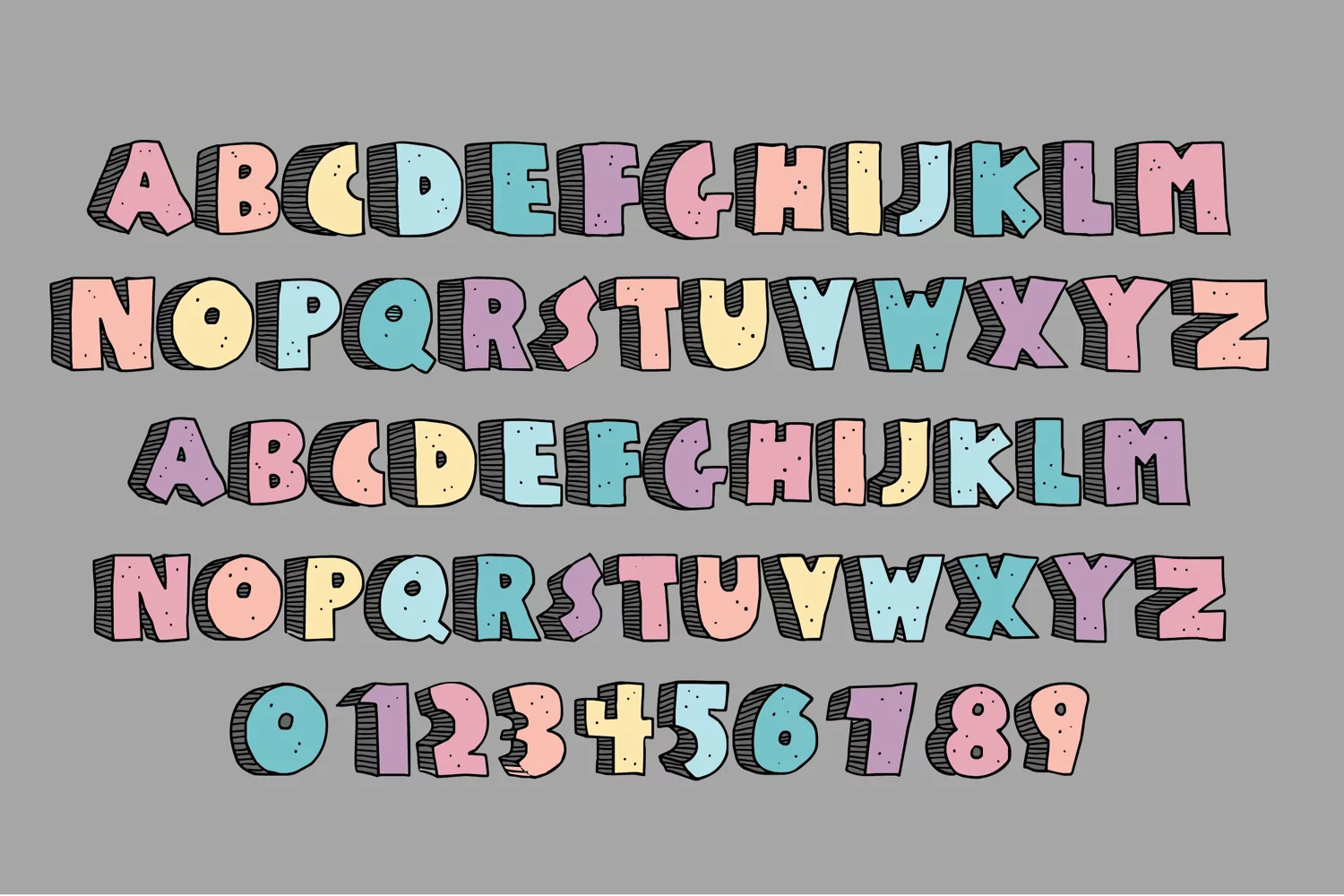
Schoodle Spring
This full-color font features a 3-d style, prehistoric looking font in a spring color palette. There is an alt case of additional variations of each letter that you can access through your system or Silhouette's glyph map.